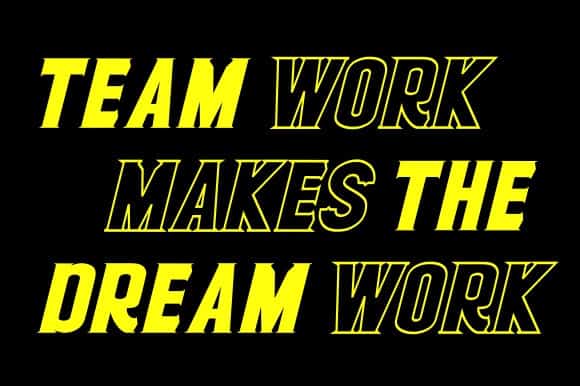
Ractor Display Font is a vintage display sans serif with Regular and Outline font files. It is a font from the designer teguh pranata. Ractor looks bold, yet sophisticated and features chunky and extended characters that will look particularly adept when used in logos, branding, packaging design, and much more. This masterfully designed display font is a true must-have.